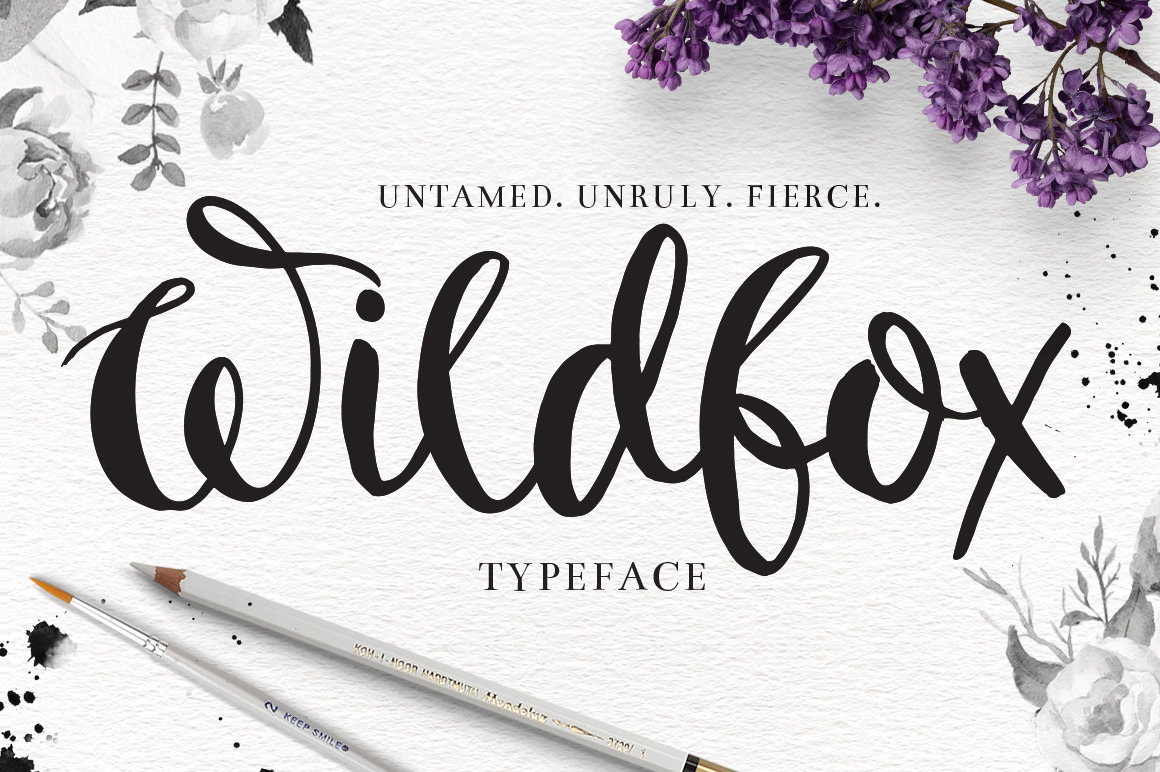
"Wildfox" Typeface-Hand drawn font
This is Wildfox, an artsy, unruly hand-drawn typeface! It's full of personality, and would be perfect in your next project! Use in on wedding invitations, inspirational typography posters, home decor products, branding projects.... the list goes on! So what are you waiting for? Click the green button, and let your imagination run "wild" (see what I did there?)